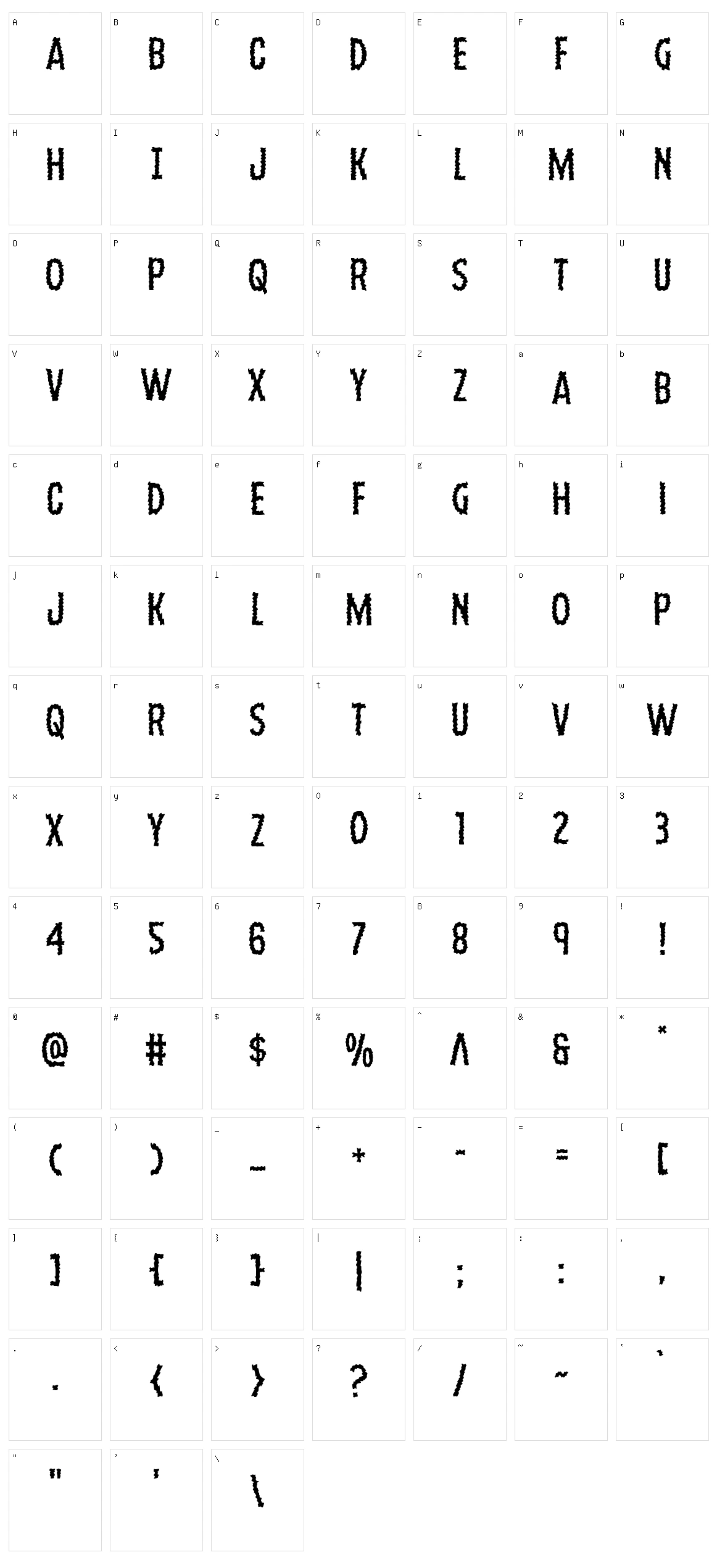
This font comes with the following 24 versions: Regular, Italic, Semi-Italic, Condensed, Condensed Italic, Expanded, Expanded Italic, 3D, 3D Italic, Gradient, Gradient Italic, Halftone, Halftone Italic, Warped, Warped Italic, Staggered, Staggered Italic, Staggered Rotated, Staggered Rotalic, Rotated, Rotated 2, Rotalic, Leftalic and Super-Italic.